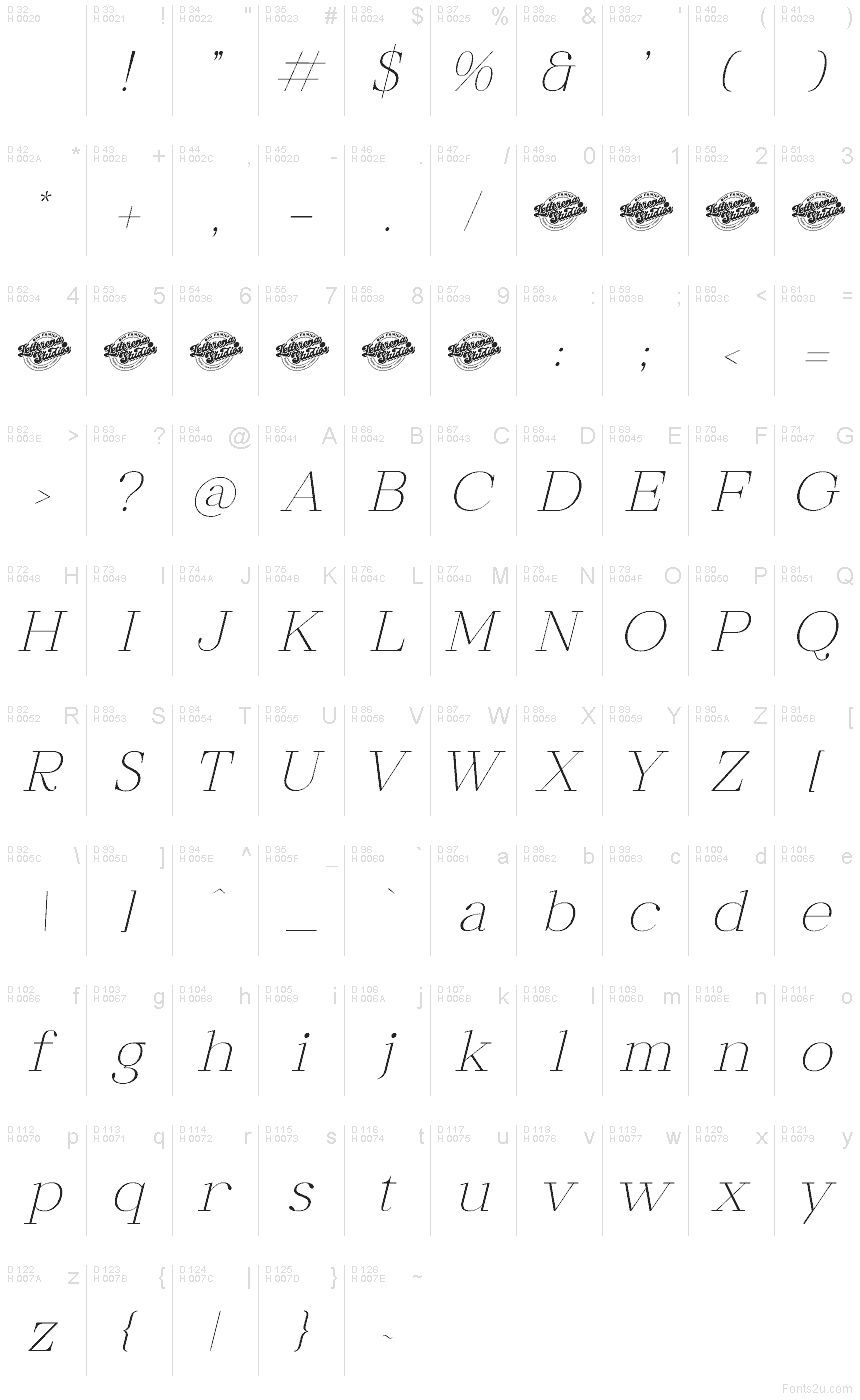
Galiken DEMO VERSION Italic
Galiken Italic font by Letterena Studios is a light serif font that captures elegance with a modern classic influence. Its refined and sophisticated appearance is perfect for designs that require a delicate and stylish touch.
This free serif font can work nicely in branding projects, packaging, advertising, typography art, magazines, apparel design, posters or digital presentations. It enhances menus and distinct logo features alongside business cards along with other print materials.